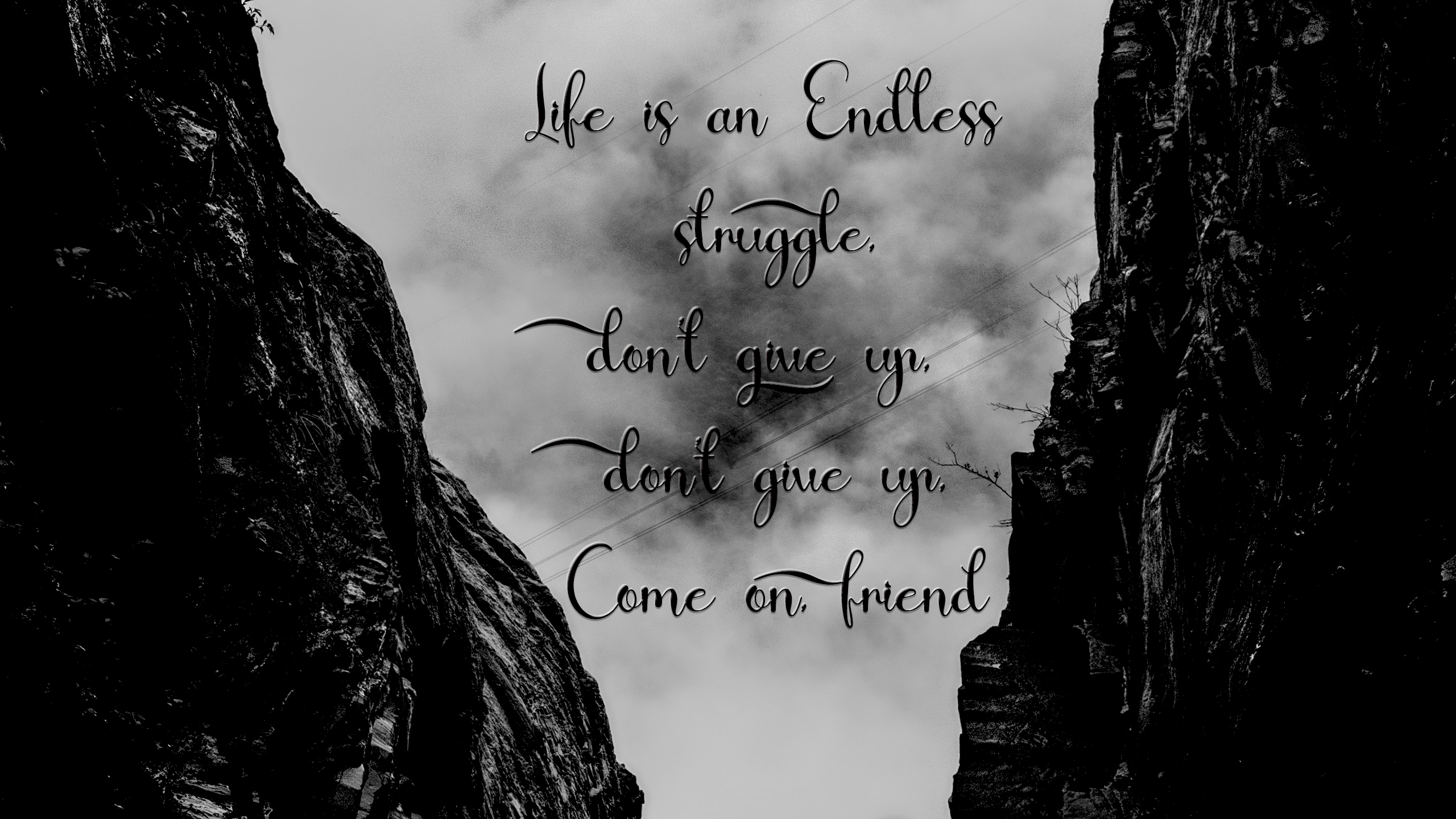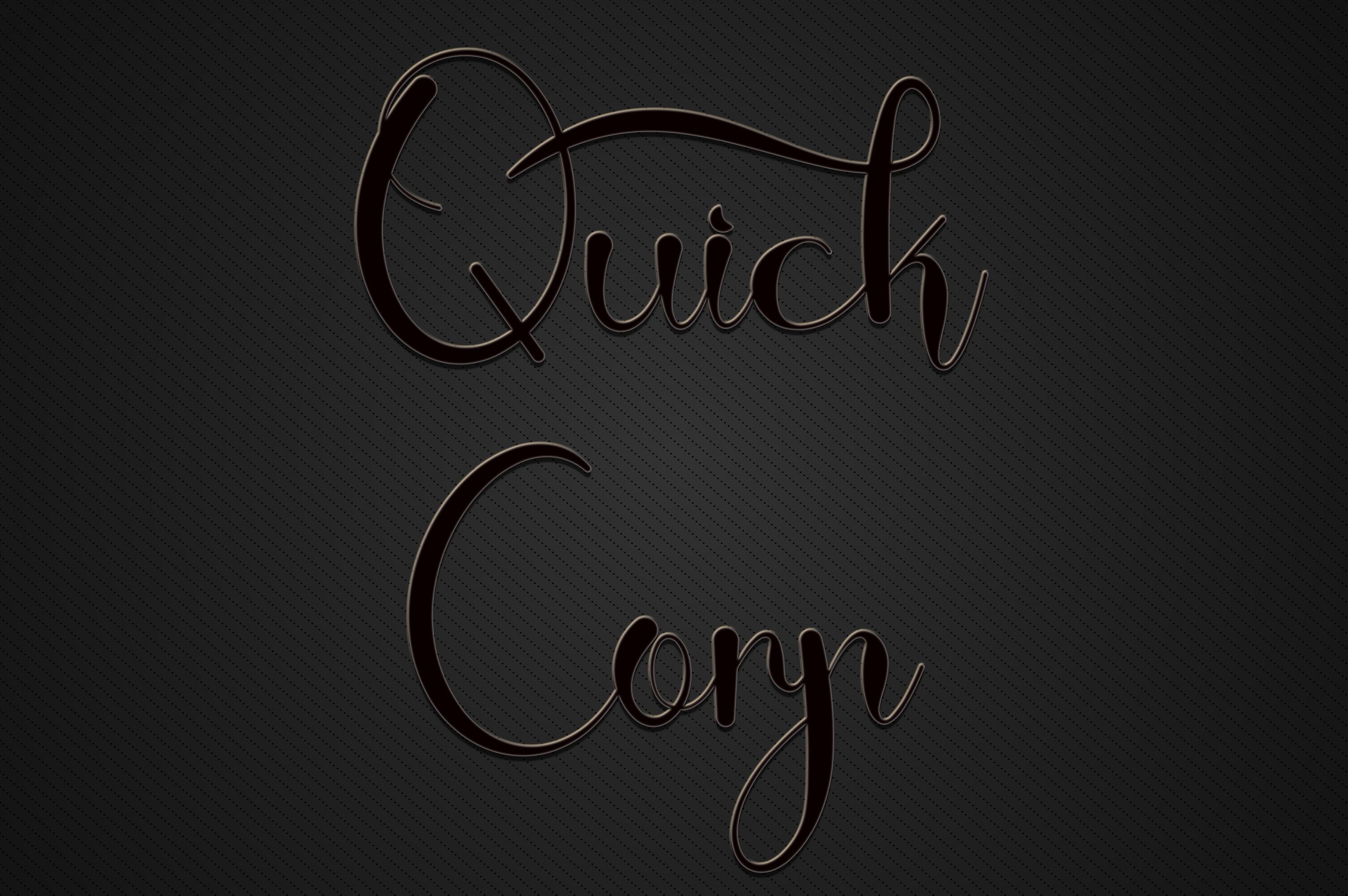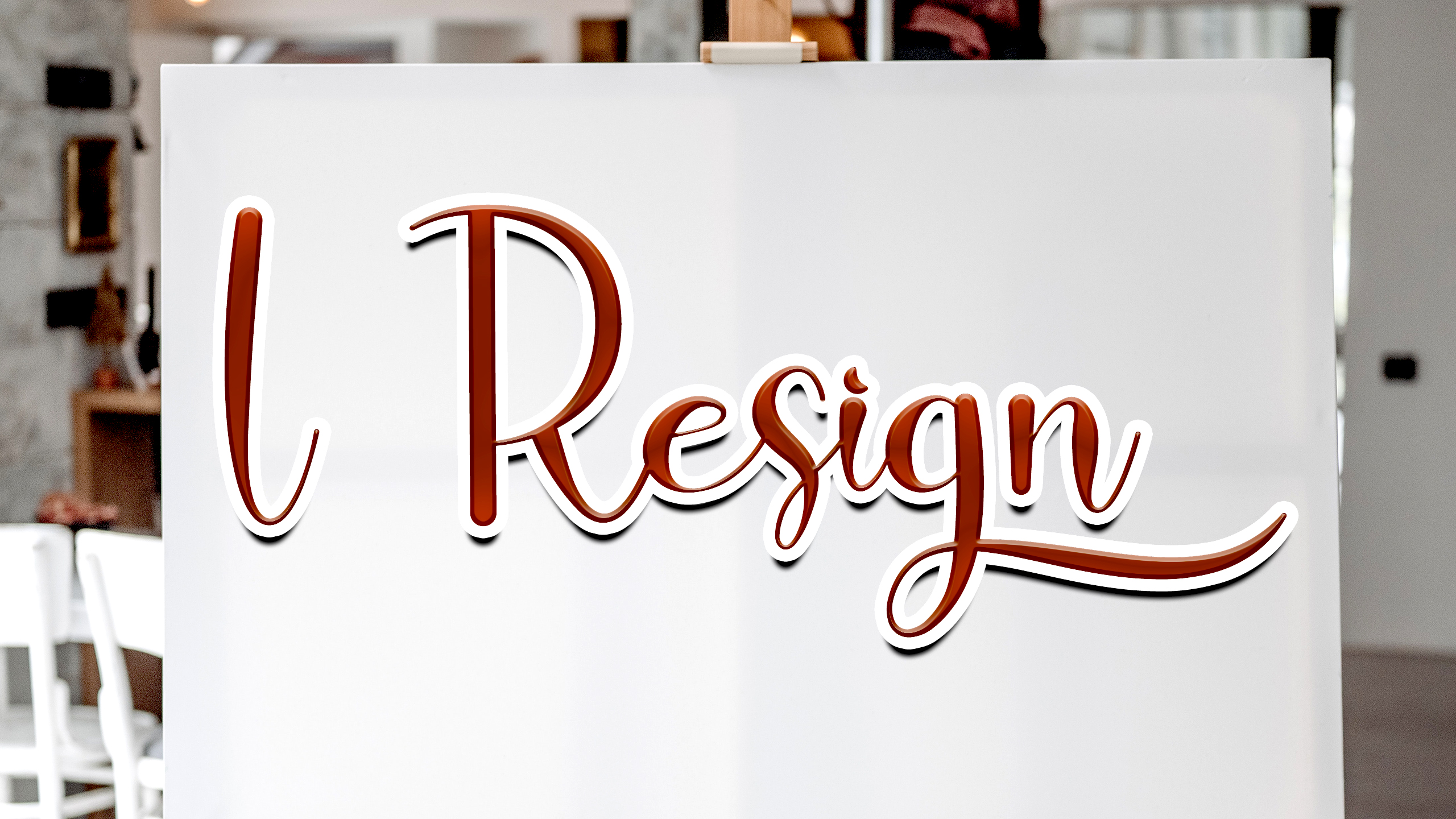
Syamsh Font
Syamsh Script Font
This is a beautiful and light handwritten font with a unique feel and a stunning impact. It will add a luxury spark to any design project that you wish to create.